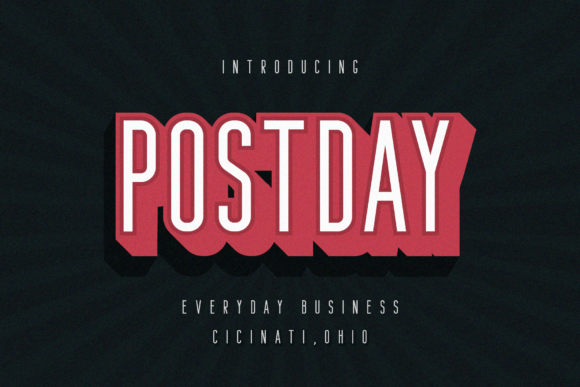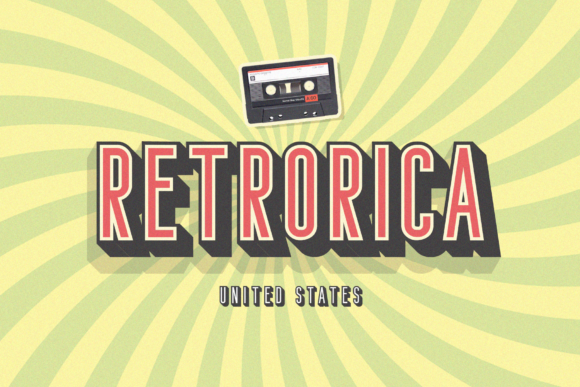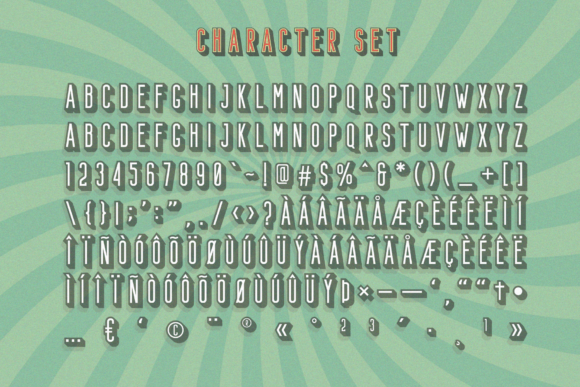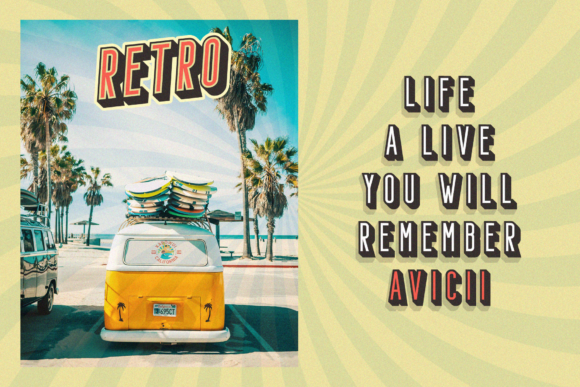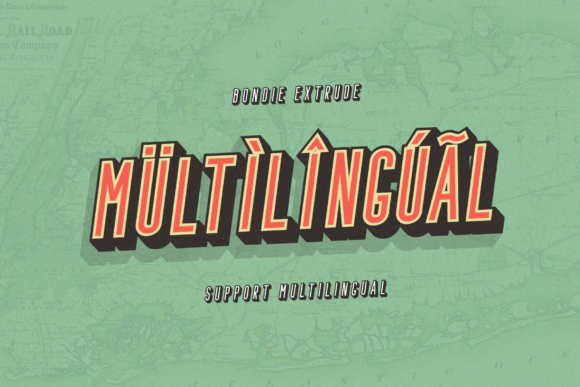
Bondie Font: Elevate Your Designs with a Retro Twist
Are you looking for a font that adds a touch of nostalgia to your designs? Look no further than Bondie Font, a stunning extrude font family in a sans serif style. Inspired by retro American and European sans serif lettering used in vintage advertising, Bondie is a contemporary font that is sure to elevate your designs.
What Makes Bondie Font Special?
Bondie Font is not just any ordinary font. It comes with 4 unique layers that can be stacked to create a unique combination of designs. This feature makes it incredibly versatile and suitable for a wide range of uses, including logos, cards & quotes, posters, personal & corporate branding, apparel designs, and much more.
Exploring the Retro Inspiration
The Bondie font family is the result of an exploration of retro American and European sans serif lettering used in vintage advertising. The font’s design is reminiscent of classic signs, posters, and advertisements from the past, but with a modern twist. The result is a font that feels both nostalgic and fresh.
Key Features of Bondie Font
- 4 Unique Layers: Each layer can be stacked to create a unique combination of designs, giving you endless possibilities for customization.
- Extrude Font Family: Bondie is an extrude font family in a sans serif style, making it perfect for designs that require a bold and modern look.
- Retro Inspiration: Inspired by retro American and European sans serif lettering used in vintage advertising, Bondie adds a touch of nostalgia to your designs.
- Contemporary Design: Despite its retro inspiration, Bondie is a contemporary font that feels fresh and modern.
Uses for Bondie Font
Bondie Font is incredibly versatile and can be used for a wide range of design projects, including:
- Logos: Create a bold and eye-catching logo for your business or brand.
- Cards & Quotes: Add a touch of nostalgia to your greeting cards and quotes.
- Posters: Create stunning posters that grab attention.
- Personal & Corporate Branding: Use Bondie to create a unique and memorable brand identity.
- Apparel Designs: Add a touch of style to your t-shirts, hoodies, and other apparel.
Tips for Using Bondie Font
To get the most out of Bondie Font, here are a few tips:
- Experiment with Layering: Don’t be afraid to experiment with stacking the different layers to create unique combinations.
- Play with Colors: Try out different color schemes to see what works best for your design.
- Mix and Match: Combine Bondie with other fonts to create a unique look.
Bondie Font is a versatile and stylish font that is perfect for designers and crafters looking to add a touch of nostalgia to their designs. With its 4 unique layers, retro inspiration, and contemporary design, Bondie is sure to elevate your designs and help you stand out from the crowd.